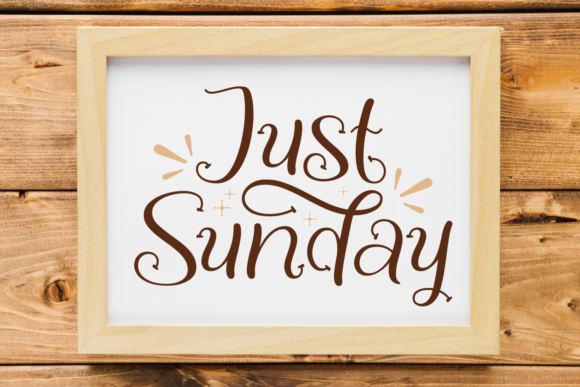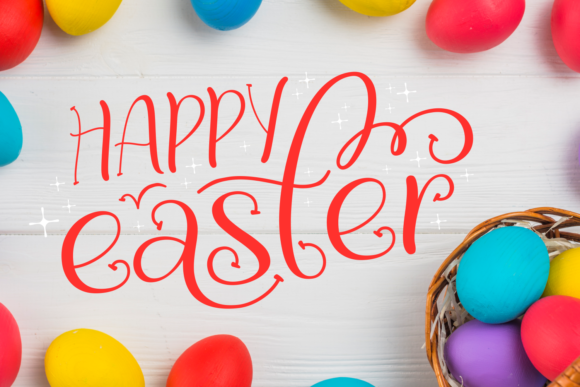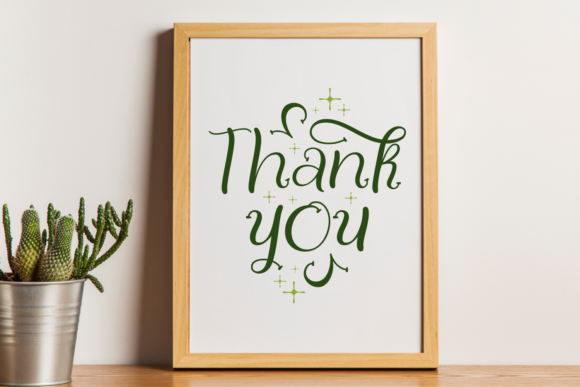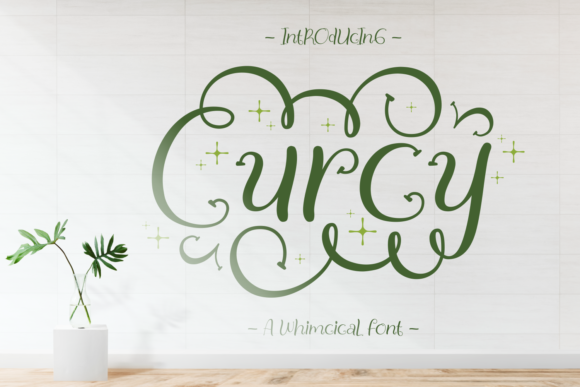
Introduction to Curcy Font
Curcy is elegant and playful, but also sophisticated.
This versatile script font has a wide range of applications ranging from calligraphy art to DIY projects and is guaranteed to add an authentic touch to your next design This font is PUA encoded which means you can access all of the magical glyphs and swashes with ease.